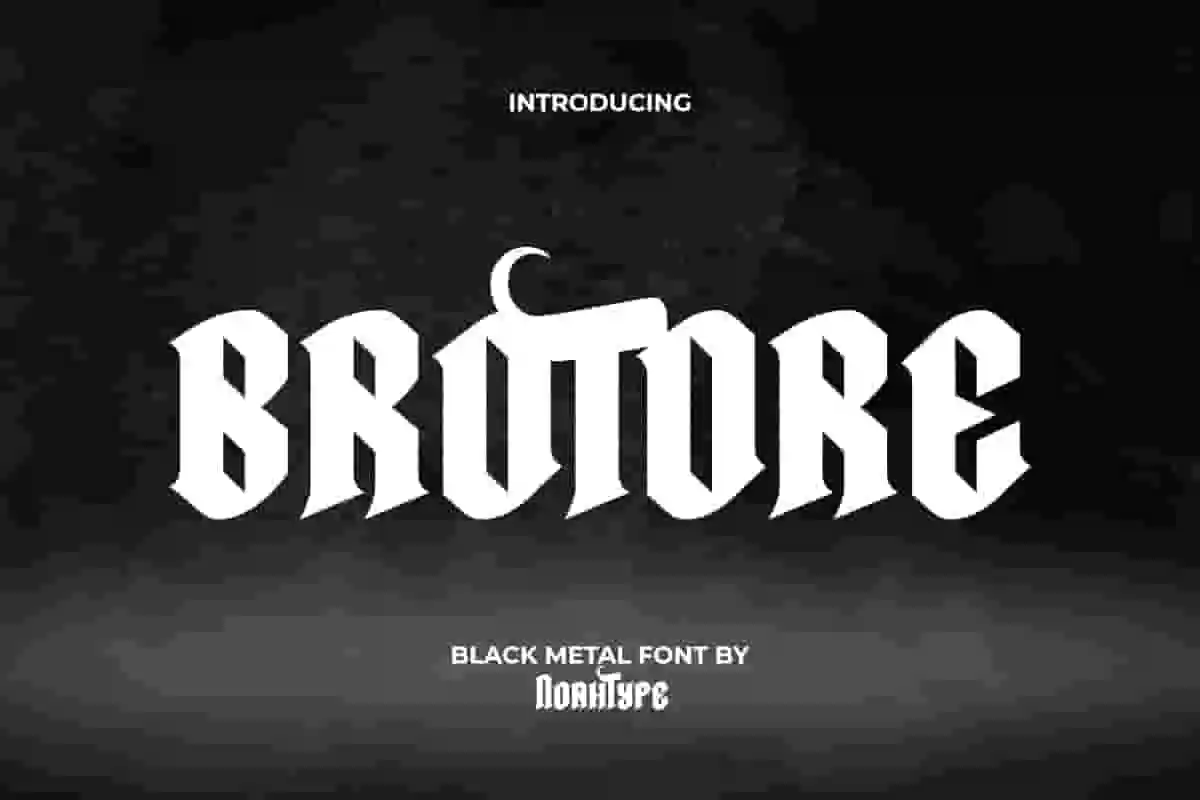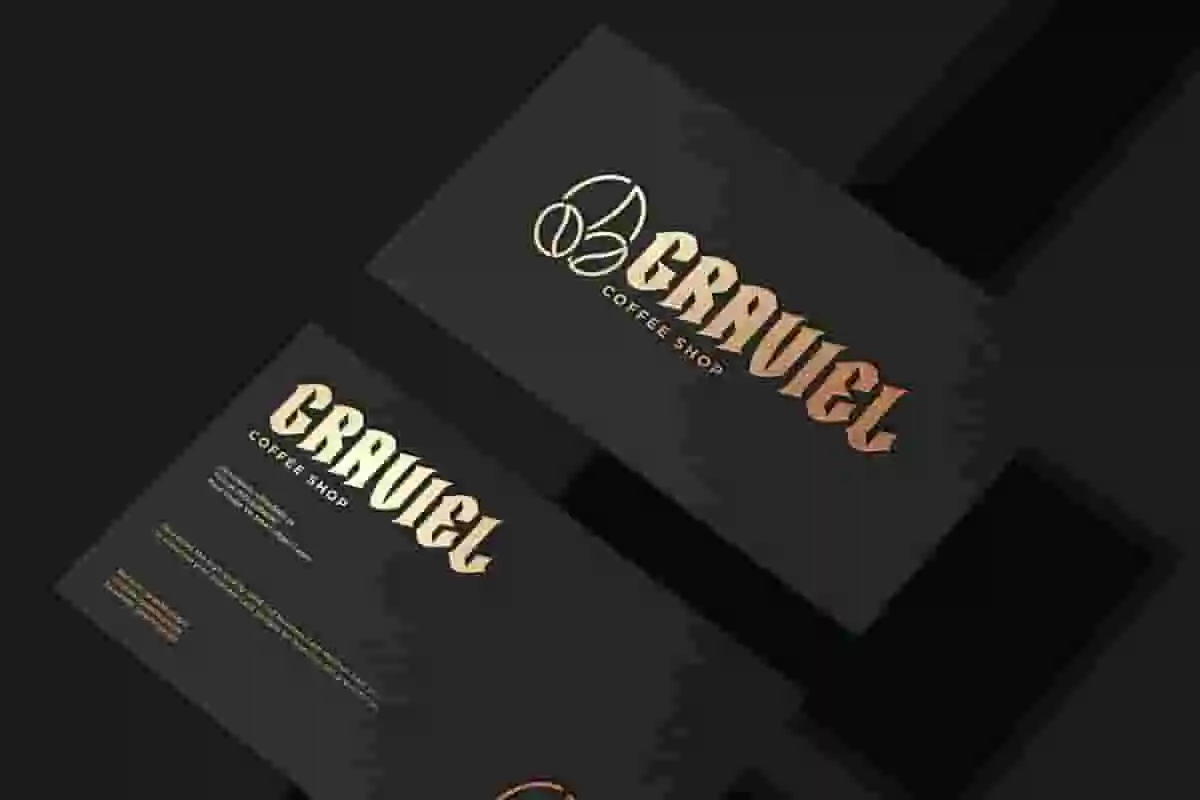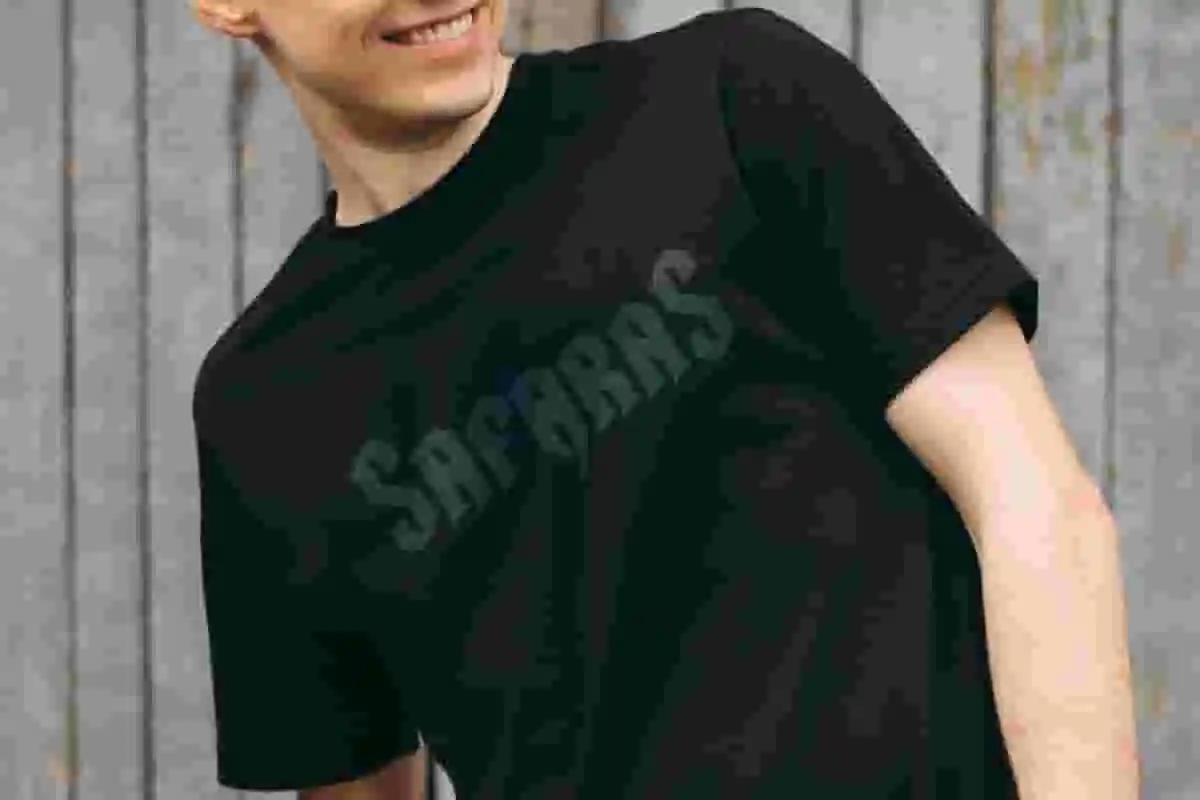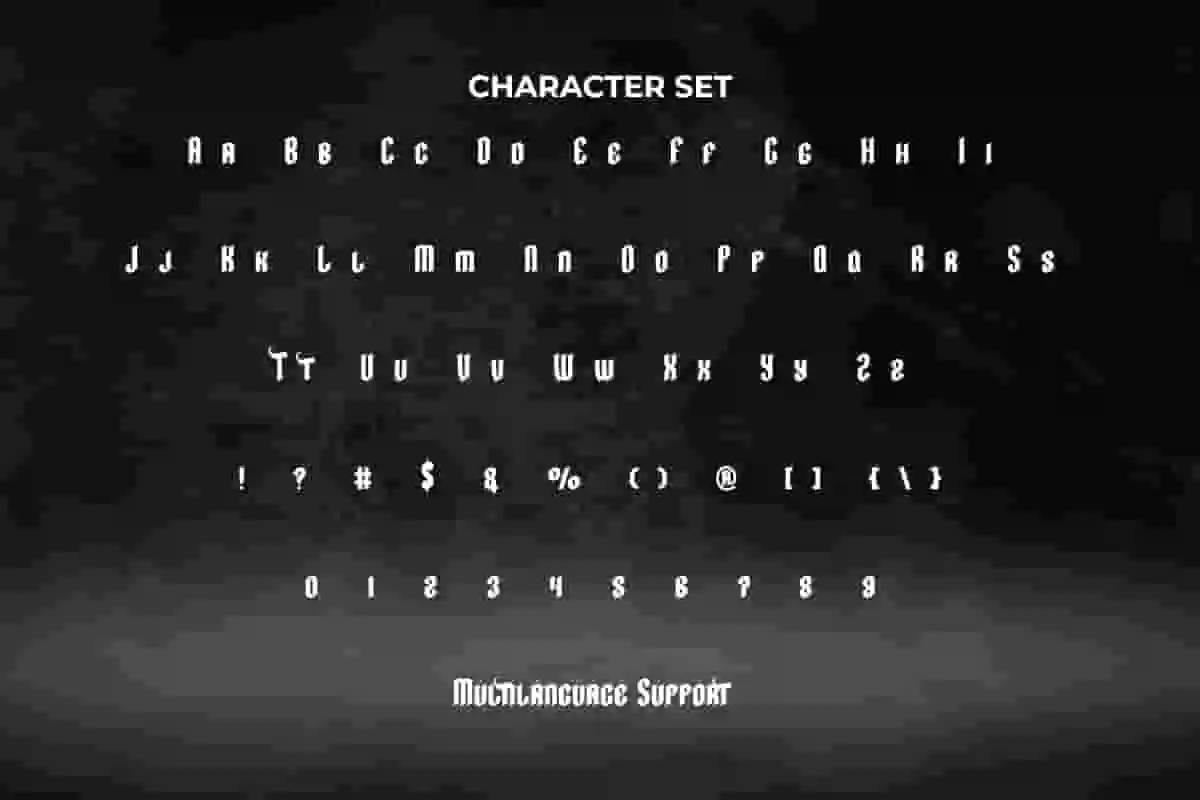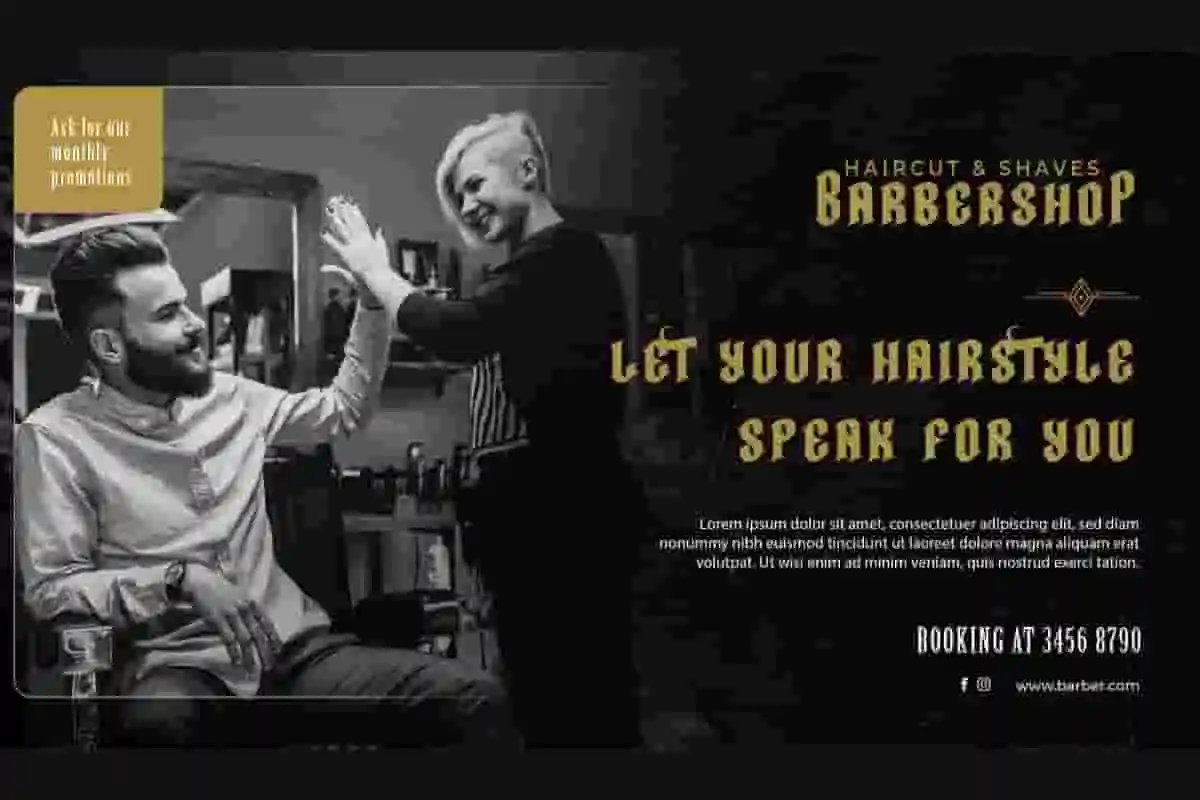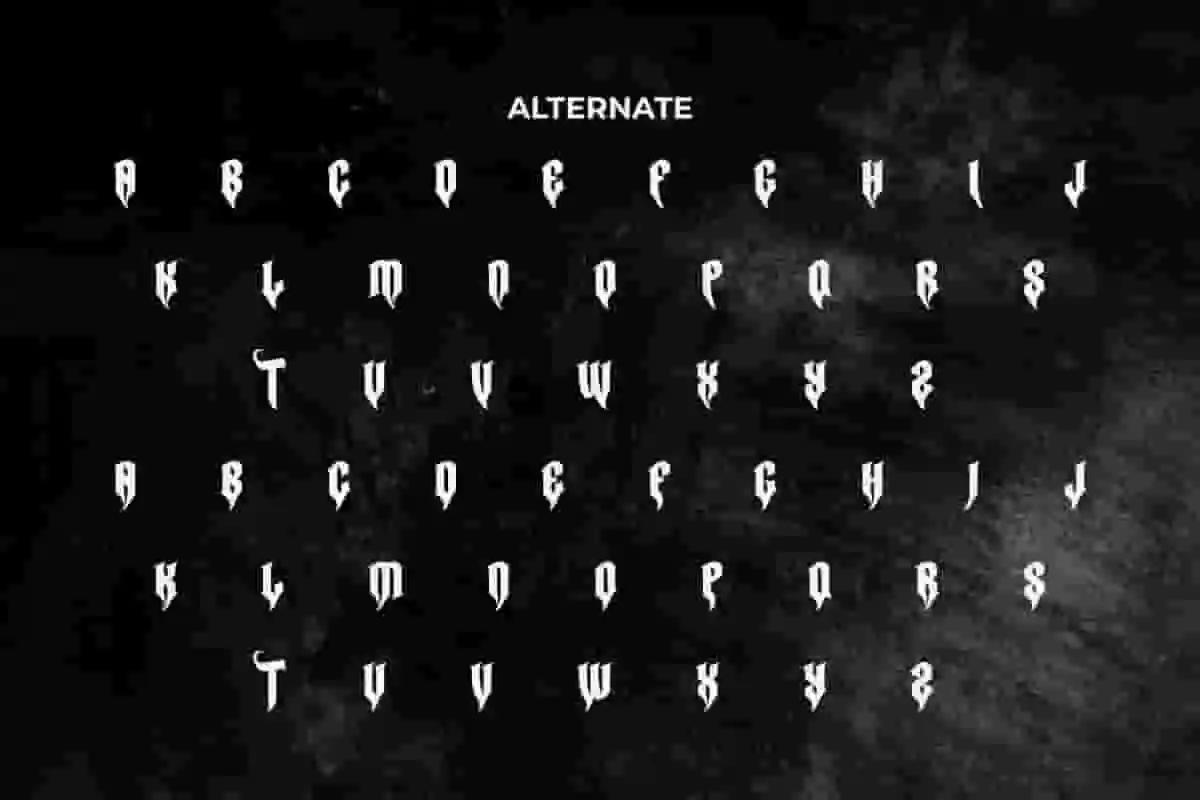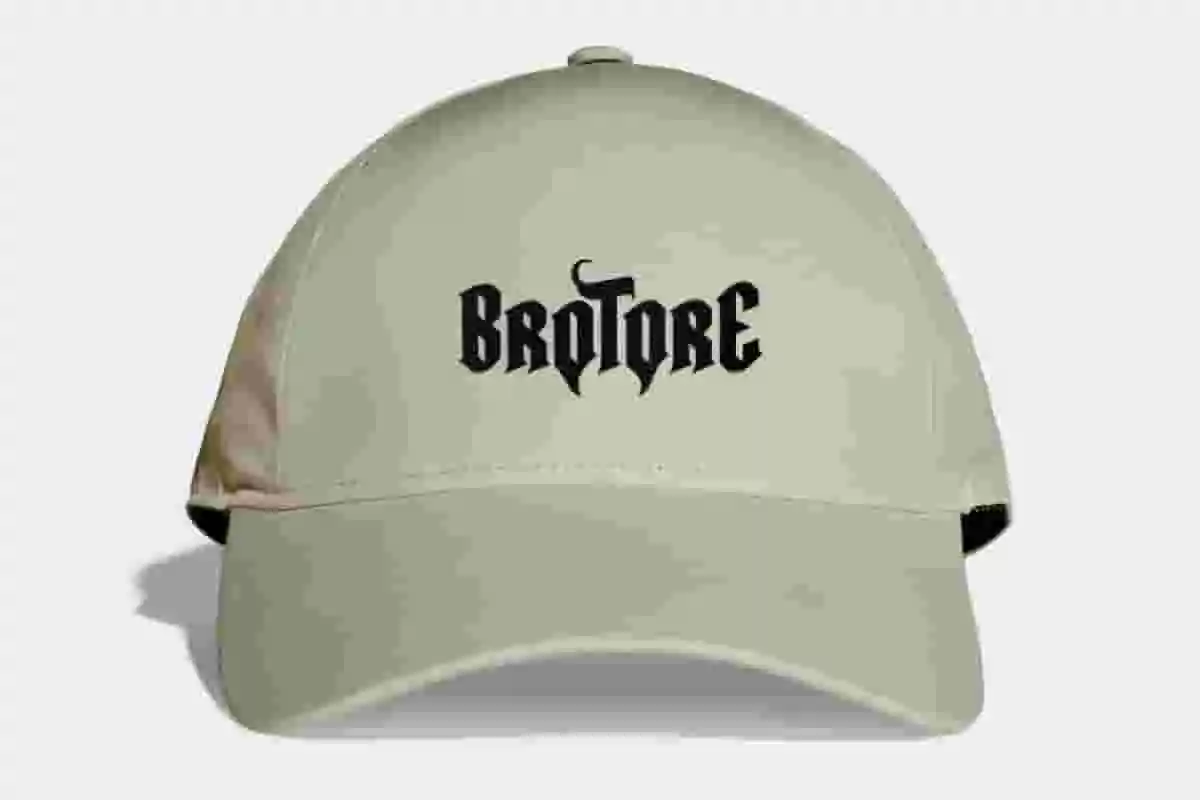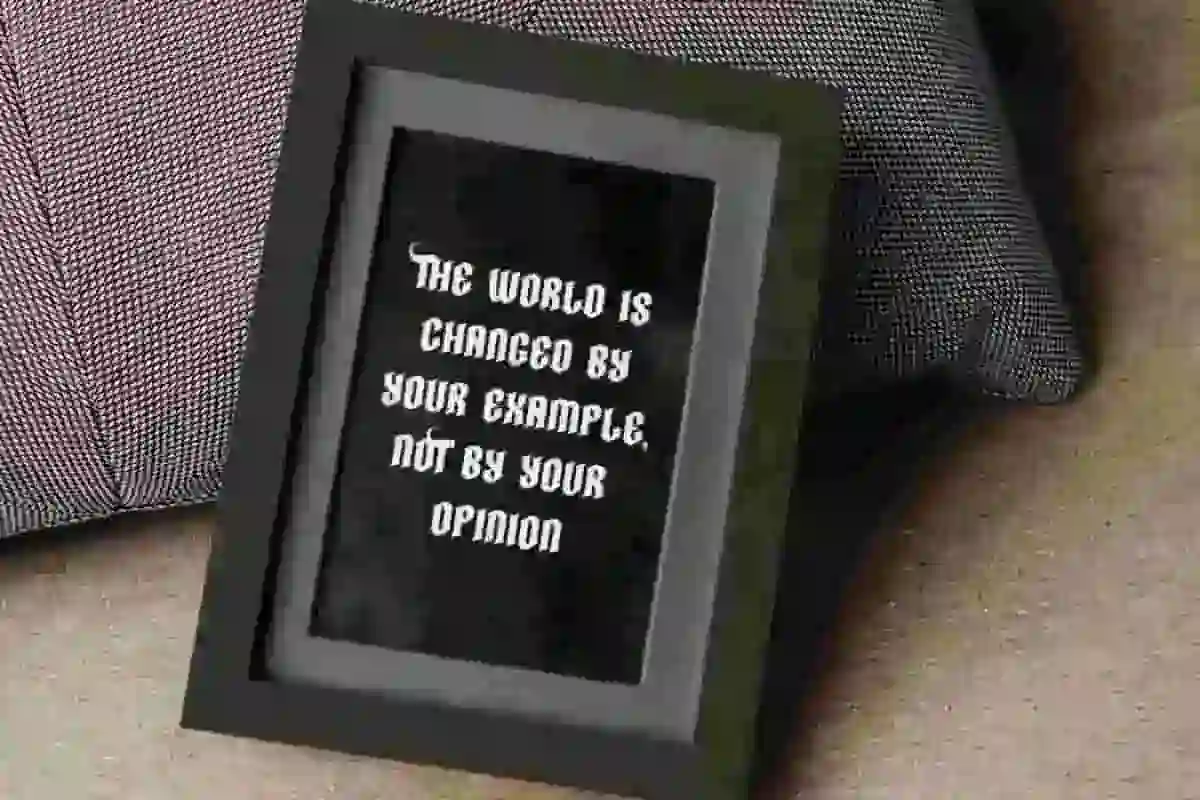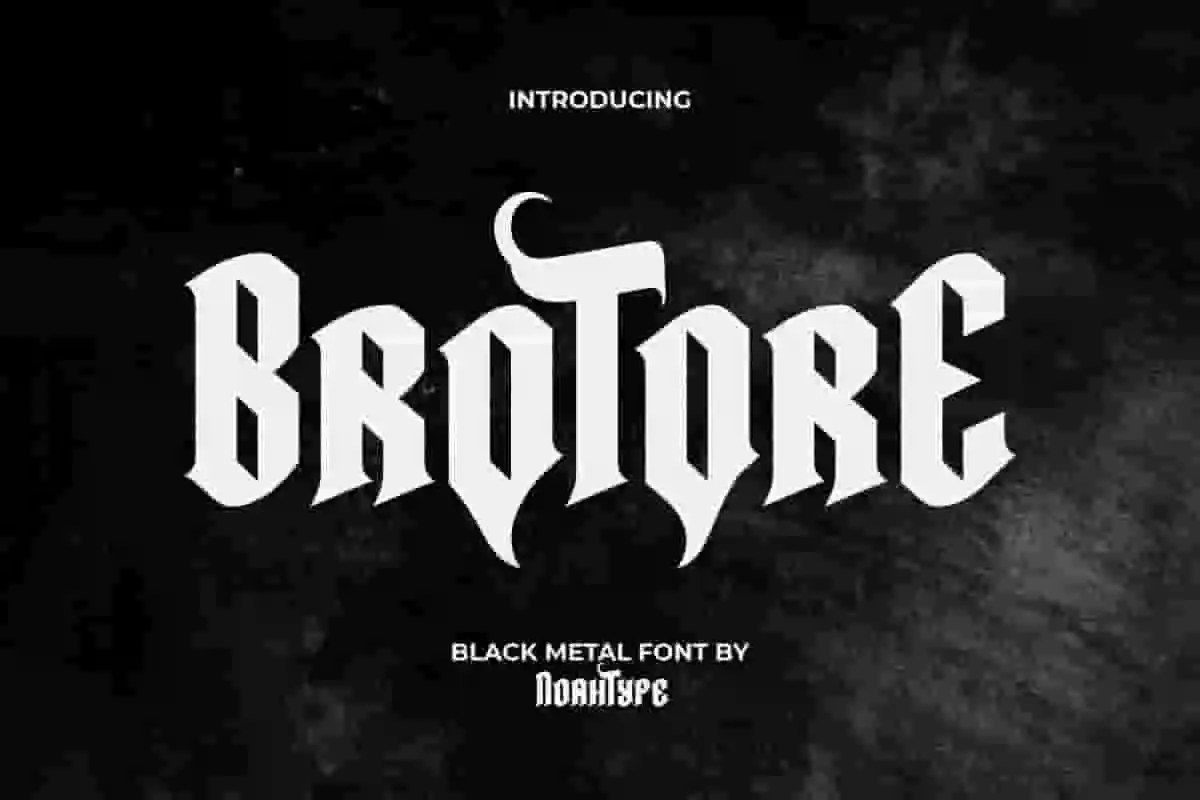
Brotore Font is a cool black metal font by NoahType. This font style implies a cool mysterious and dark impression at the same time. It will be perfect for any designs, such as custom design, brand image, poster, label, invitation, cover, marketing material, menu, printing, product packaging, quotes, signage, website, and many more!
Brotore Font includes full set of ALL CAPS for Uppercase and Lowercase Basic Characters, Numerals, Punctuation, Symbol, and Alternate character. This cool font will make your design amazing and also a perfect choice for many industries, such as game, movie, music, accessories, advertising, art, café, event or festival, fashion, printing, publishing, etc.